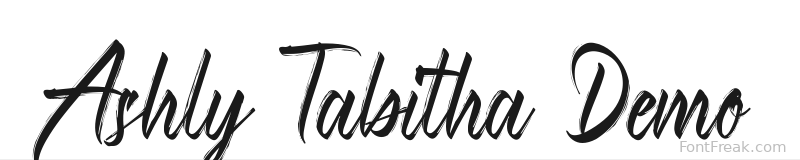
Ashly Tabitha Demo
About Ashly Tabitha Demo
The Ashly Tabitha Demo font by Noah Type is a beautifully crafted script typeface that exudes elegance and charm. This font features fluid, cursive strokes that mimic the art of handwriting, making it an ideal choice for projects that require a personal touch. The visual characteristics of Ashly Tabitha include a medium stroke weight with a slight contrast, lending it a graceful yet legible appearance. The spacing between characters is well-balanced, ensuring readability while maintaining its artistic flair. Decorative elements, such as sweeping curves and playful flourishes, enhance its whimsical nature.
Ashly Tabitha is particularly well-suited for a variety of creative applications. It shines in wedding invitations, where its romantic style helps set a celebratory tone. Additionally, this font works beautifully for branding projects, particularly for boutique shops or artisanal products that aim to convey a handcrafted feel. Movie posters can also benefit from the unique flair of Ashly Tabitha, drawing attention with its eye-catching aesthetic. Restaurant menus, especially those for upscale dining or cafes, can utilize this font to evoke a sense of sophistication and warmth.
The target audience for the Ashly Tabitha Demo font includes graphic designers looking to elevate their projects, small business owners seeking a distinctive brand identity, and content creators who want to add a touch of personality to their work.
What makes the Ashly Tabitha Demo font stand out is its ability to blend artistry with practicality, offering a versatile option for various design needs. Its free availability encourages designers to experiment with its unique style, making the Ashly Tabitha Demo font free download an attractive option for those looking to enhance their creative projects.